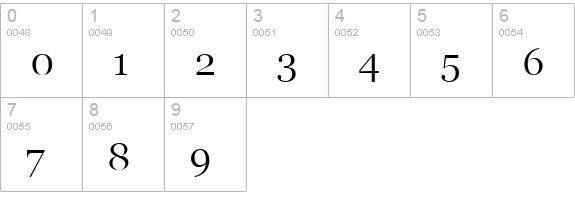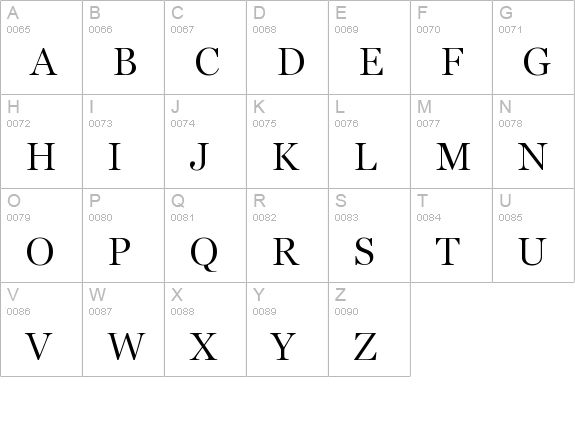
SD Georgia Light Font Details
SD Georgia Light is a refined, elegant variant in the SD typeface family \xE2\x80\x94 well suited to elegant body text, refined sub-headings, and luxury branding.
SD Georgia Light is a modern and elegant font that adds a touch of sophistication to any design project. Its delicate and refined letterforms are perfect for creating a sense of elegance and professionalism. The slender strokes and graceful curves make it a versatile typeface that can be used in a variety of contexts, from branding and logo design to editorial layouts and invitations. What sets SD Georgia Light apart is not only its aesthetic appeal but also its accessibility. This font is freely available to download at FontsMarket.com, making it an excellent choice for designers on a budget or those looking to experiment with new typefaces without breaking the bank. With its high-quality design and seamless readability, SD Georgia Light is a valuable addition to any typography collection. Whether you're designing a website, crafting a magazine layout, or creating a beautiful wedding invitation, SD Georgia Light will elevate your project to new heights. Its clean and timeless design will stand the test of time, ensuring that your work remains visually stunning and impactful. Download SD Georgia Light today from FontsMarket.com and unlock its full potential for your next design endeavor.